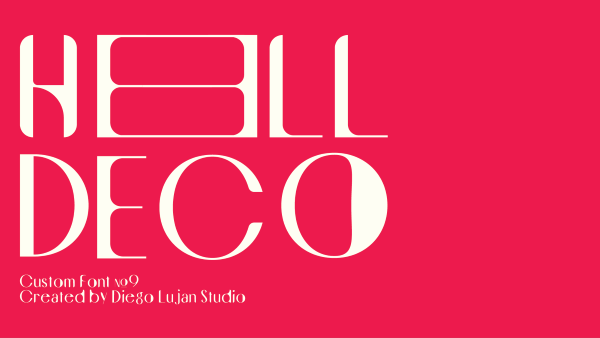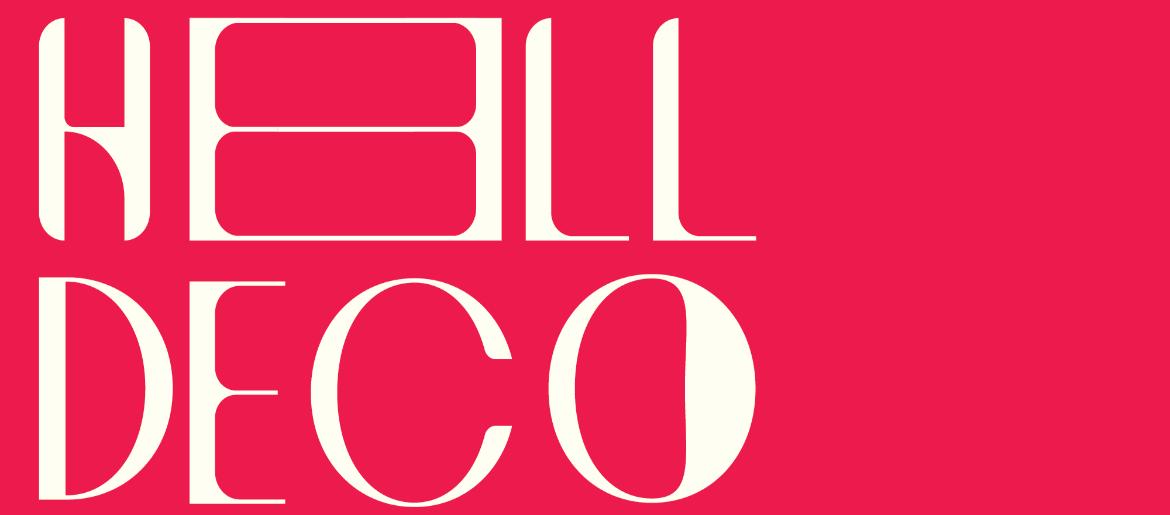
Hell Deco Font
Hell Deco by Diego Luján is a free display typeface that draws from the geometric elegance of Art Deco lettering while giving it a distinct contemporary edge. Its clean lines, confident proportions, and decorative sensibility make it a strong choice for visual identity work, editorial titles, luxury packaging, poster design, and any creative context that calls for a typeface with architectural presence and historical depth. There is an inherent tension in the name — beauty and darkness held in balance — and the letterforms carry that contrast with surprising subtlety. Free for personal use.